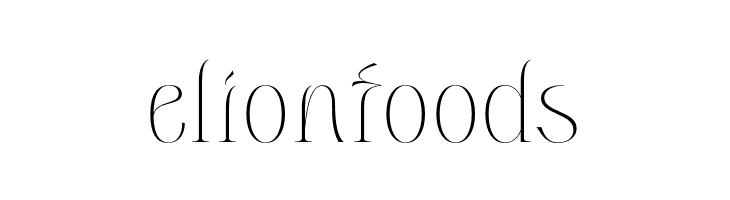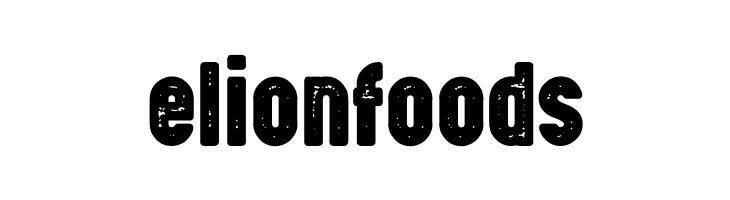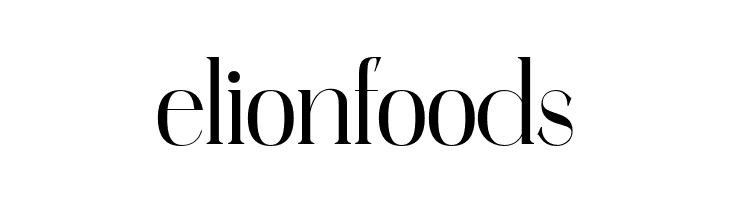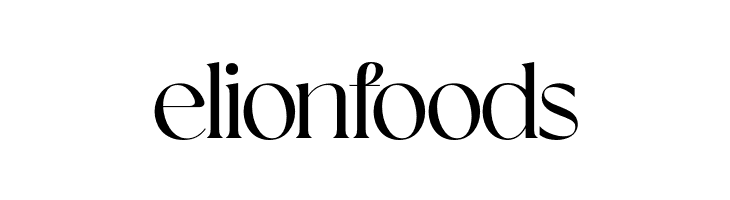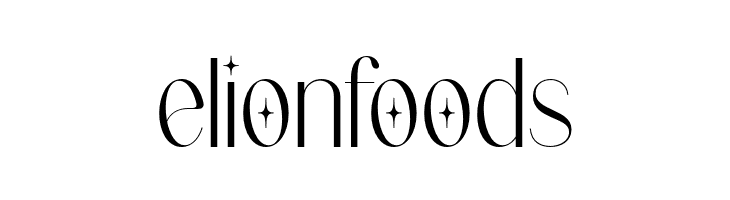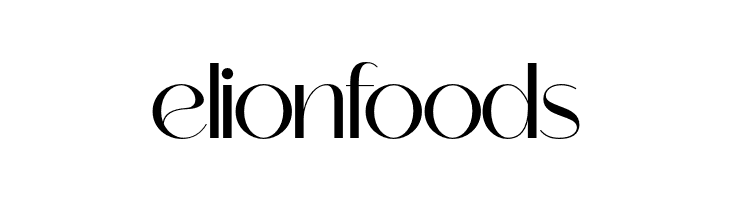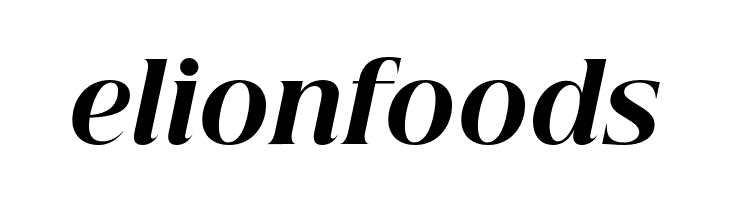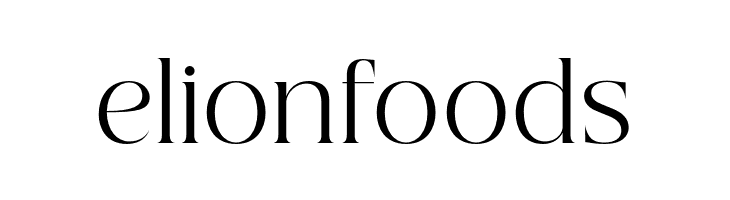
A modern, elegant serif font with high contrast and elongated strokes.
A bold, heavy font with a rough, distressed texture for a rugged, industrial look.
A sophisticated serif typeface with modern elegance and high contrast.
A high-contrast, elegant serif font with refined strokes and decorative flourishes.
A modern, high-contrast font with elegant, slender characters.
An elegant serif font with high contrast and refined design.
A modern, high-contrast font with elegant, slender characters and unique decorative elements.
A modern, high-contrast font with elegant strokes and a stylish appearance.
A bold, high-contrast italic font with an elegant and dynamic style.
An elegant, high-contrast serif font with modern, elongated strokes.